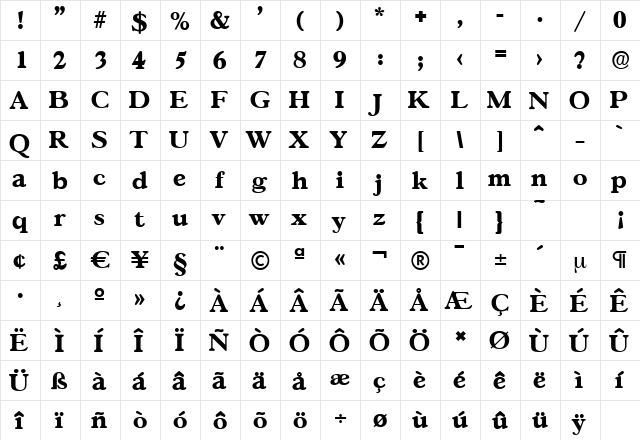
GascogneSerial-Xbold Regular
Design Context for GascogneSerial-Xbold Typeface
GascogneSerial-Xbold takes a measured approach to typography — its balanced proportions and neutral character make it a reliable workhorse for both digital and print work. Its bold stroke weight gives it real presence on the page.